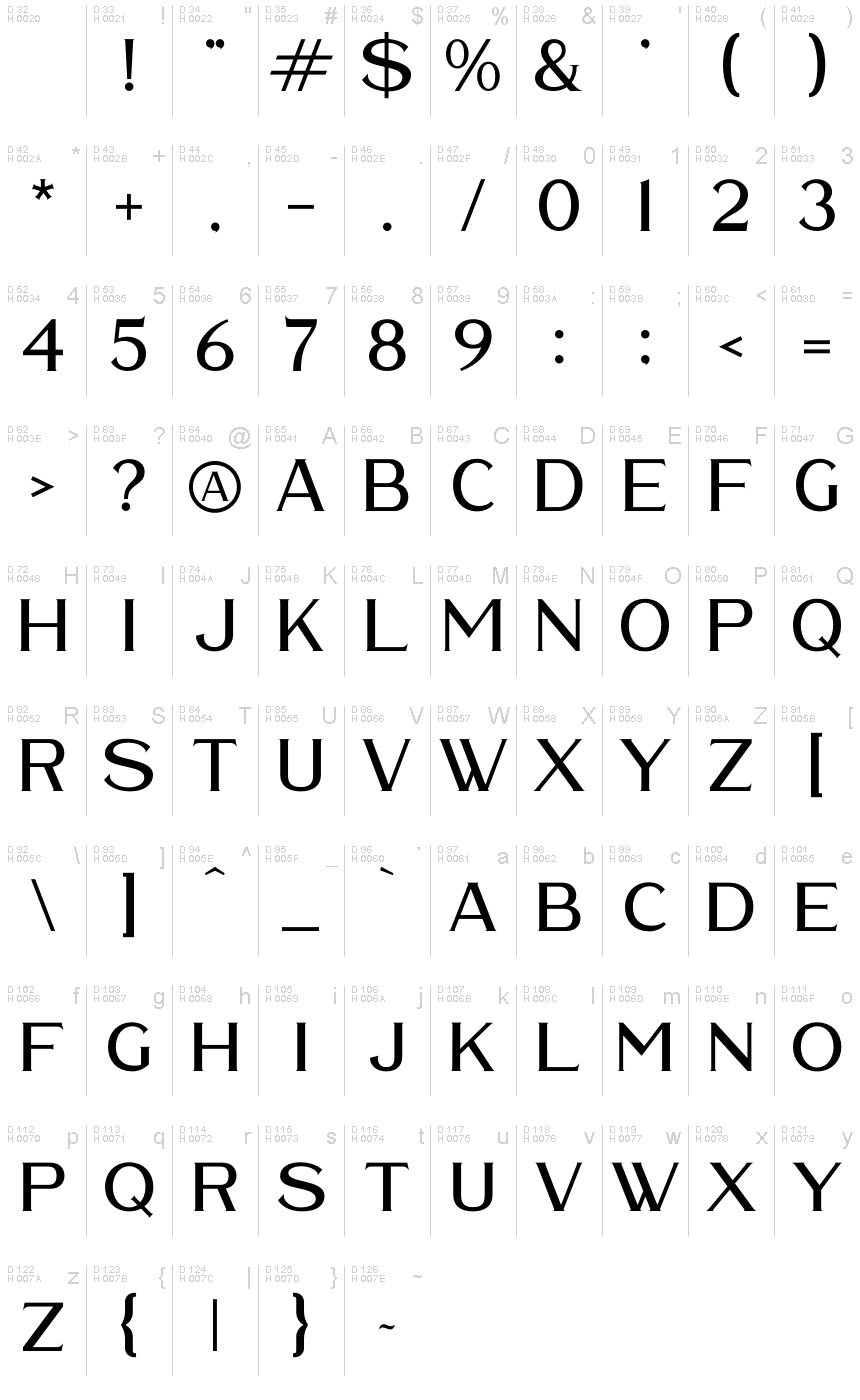
WALDECRY
Waldecry, designed by Storytype Studio, is a captivating serif font that exudes a blend of classic elegance and modern sophistication. Its serifs are meticulously crafted, adding depth and dimension to the letterforms, while the overall design conveys a sense of timeless refinement. The subtle variations in stroke width and the harmonious balance between the characters create a visually engaging and fluid reading experience.
This versatile font lends itself beautifully to a wide range of design applications, from editorial layouts and book covers to branding and packaging. Its timeless appeal makes it a suitable choice for projects that require a touch of sophistication and authority, such as high-end publications, luxury product presentations, or even formal invitations and announcements.